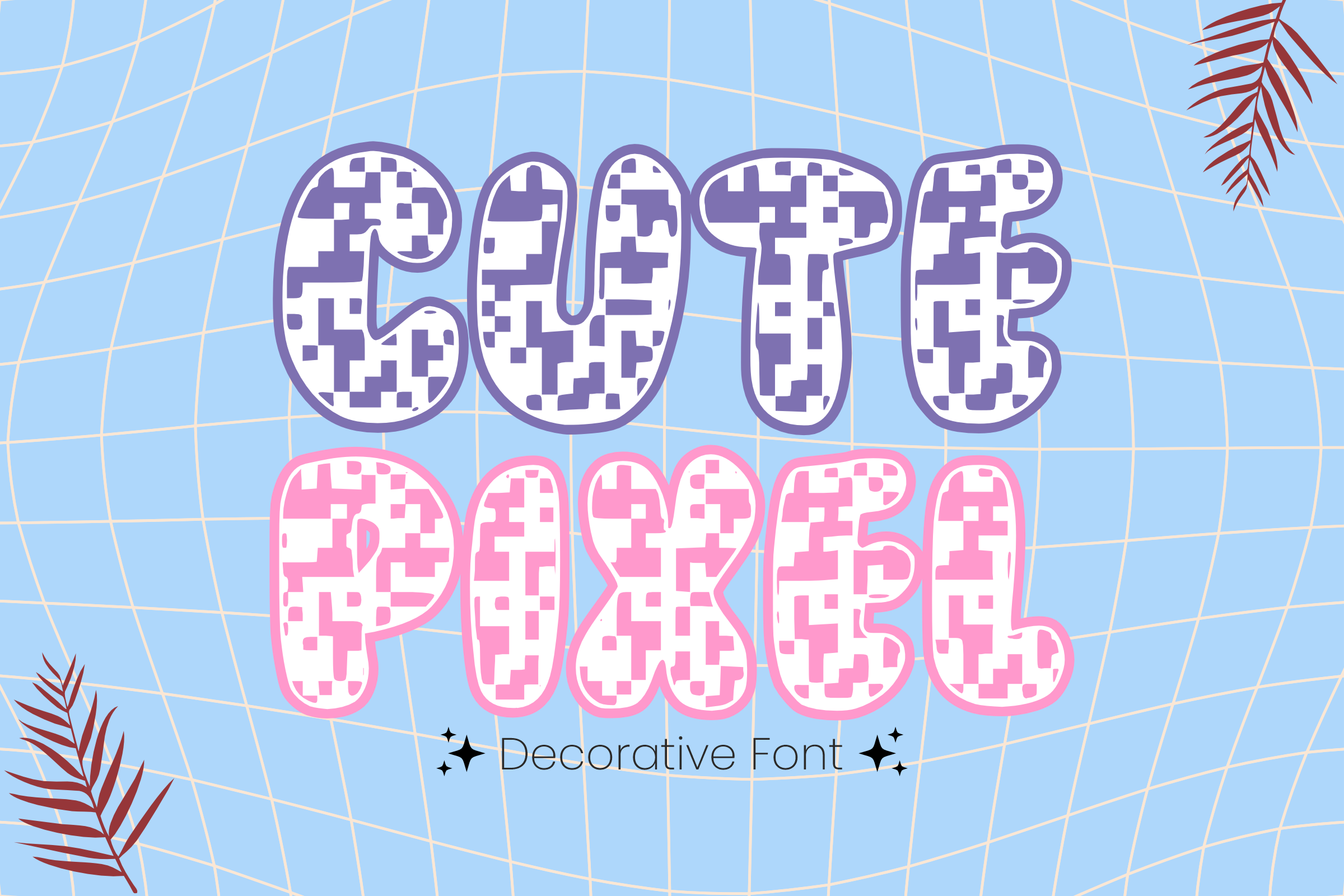
Cute Pixel - Decorative Font Types
Unveiling “Cute Pixel,” an adorable and ultra-modern pixelated cartoon-style font. Designed with unique dotted details, each character is delightfully recognizable. Ideal for a diverse range of applications, from sublimation designs on tees, mugs, and tote bags, to weaving magic in animations, comic headlines, and invitation cards. Let this font be the channel for your creative flow, crafting personalized greeting cards and more. Show your love for our work by following and liking us, as your support fuels us to design new and unprecedented fonts. Express your gratitude in every pixel with “Cute Pixel.”